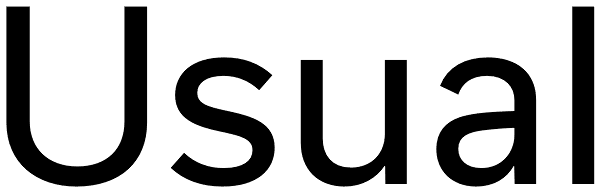
Usual
Usual is a utilitarian typeface, suitable for whenever typographic sobriety and neutrality is needed. With a clear modernist inspiration, Usual was born of the attempt at using a scale of proportions in type design. Similarly to Le Corbusier’s...